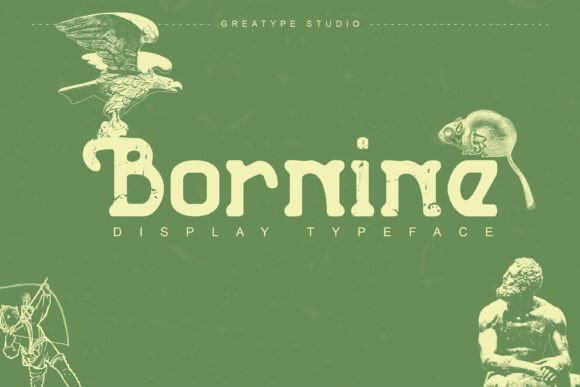
The Bornine Font: A Designer’s Dream Come True for Motorcycle Enthusiasts
The Bornine Font is a unique and elegant typeface that embodies the freedom and character of riders who live life on their own terms. With its bold lines and smooth curves, this font creates a striking yet refined impression that’s perfect for designs that require a touch of rebellion and sophistication.
An Honest Review of Bornine Font
- ✨ Unique and elegant design that stands out from the crowd
- ✅ Perfect blend of bold lines and smooth curves
- 💯 Highly legible, even at small font sizes
- 🎨 Great for designs that require a touch of personality and character
While the Bornine Font is an excellent choice for many designs, there are a few things to keep in mind:
- 🤔 Limited availability of certain characters, such as accented letters
- ⚠️ May not be suitable for very long texts or body copy due to its bold nature
- Experiment with OpenType features, such as ligatures and stylistic alternates, to add more personality to your text
- Explore the Glyphs panel to access additional characters, such as ligatures and stylistic alternates
The Bornine Font was inspired by the world of classic motorcycles and the authentic custom culture. The designer, who is also a motorcycle enthusiast, wanted to create a font that captured the spirit of freedom and adventure that comes with riding. The result is a unique and elegant typeface that’s perfect for designs that require a touch of personality and character.
Q: What is the Bornine Font inspired by?
A: The Bornine Font is inspired by the world of classic motorcycles and the authentic custom culture.
Q: Is the Bornine Font suitable for body copy?
A: While the Bornine Font is highly legible, it may not be suitable for very long texts or body copy due to its bold nature.
Q: Is the Bornine Font available in different weights or styles?
A: The Bornine Font is available in a single weight, but it features OpenType features, such as ligatures and stylistic alternates, that allow for added typography flexibility.